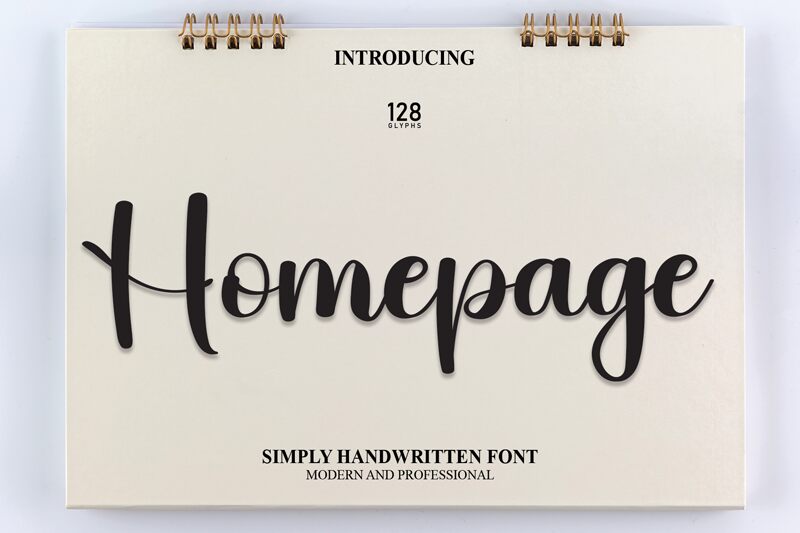
Homepage
Homepage, designed by Scratchones, embodies the fluidity and grace of calligraphy with a contemporary twist. This font's sweeping lines and elegant curves evoke the artistry of traditional hand-lettering, while its clean execution ensures legibility across various platforms.
The visual appeal of Homepage is undeniable – each character is crafted to convey movement and personality, making it an exceptional choice for design projects that require a touch of sophistication without sacrificing modern flair. Whether it's for branding, wedding invitations, or digital graphics, this font adds a personal and artistic touch that can elevate the aesthetic quality of any work.
With its versatile style that blends classic elegance with modern design principles, Homepage stands out as an adaptable typeface suited for a multitude of creative endeavors. Engage your audience with this captivating calligraphy-inspired font that promises to give your projects a distinctive and professional edge.